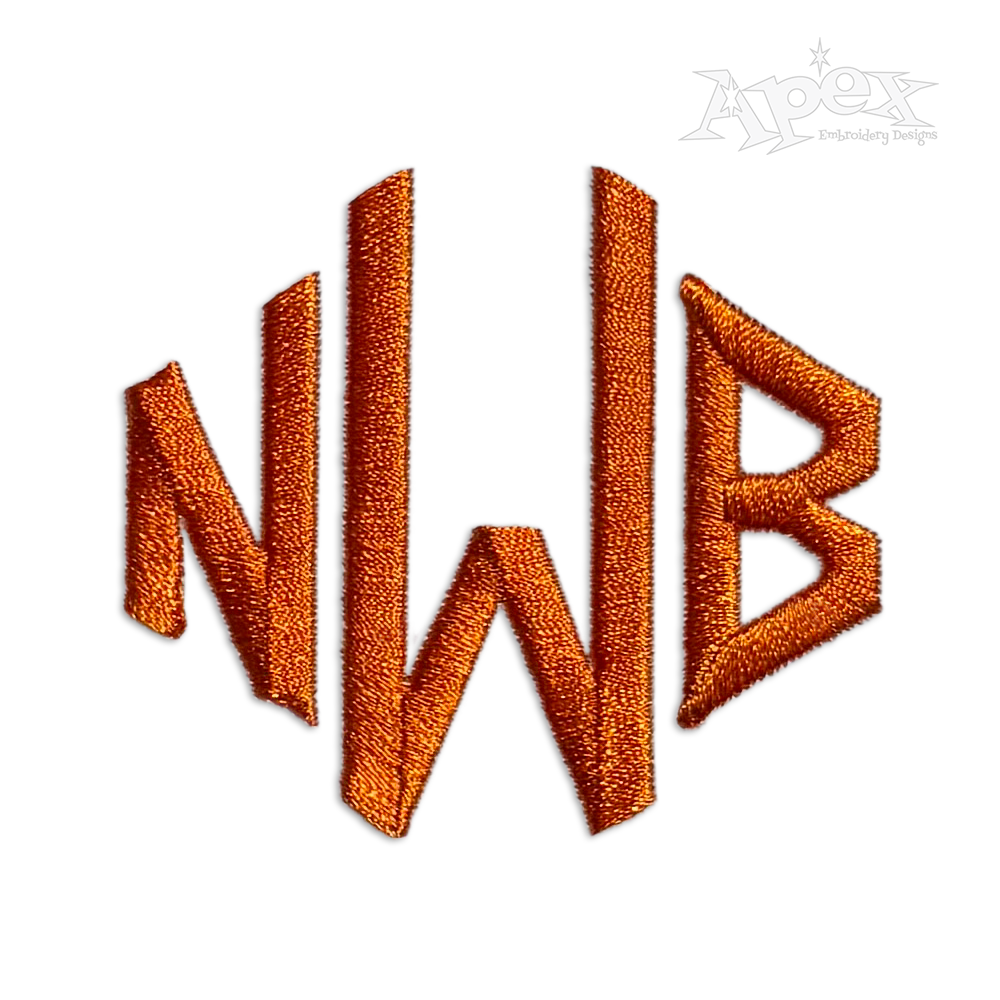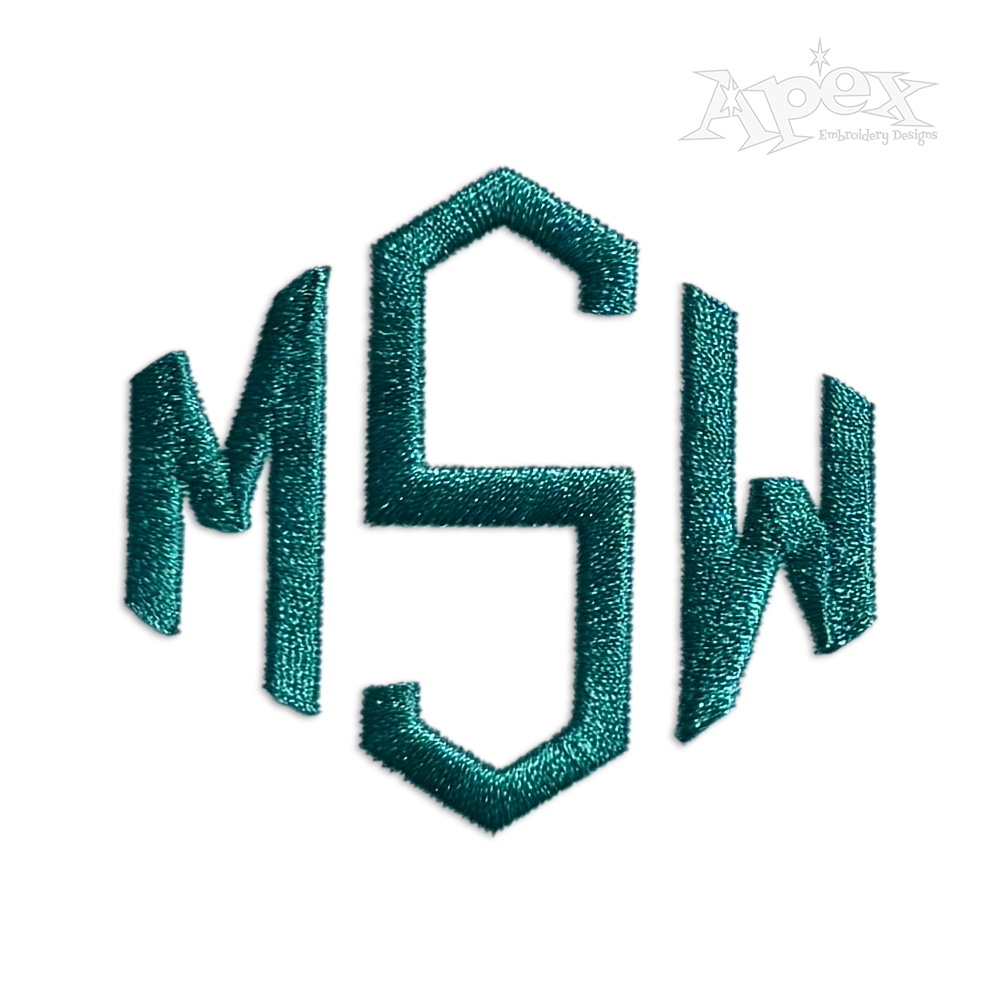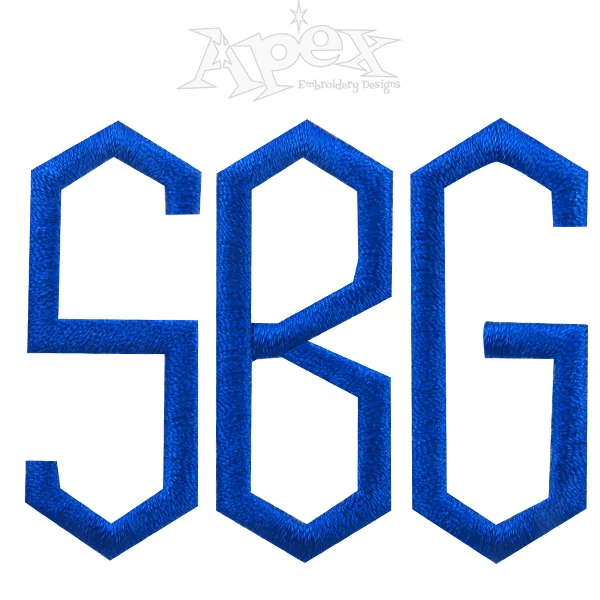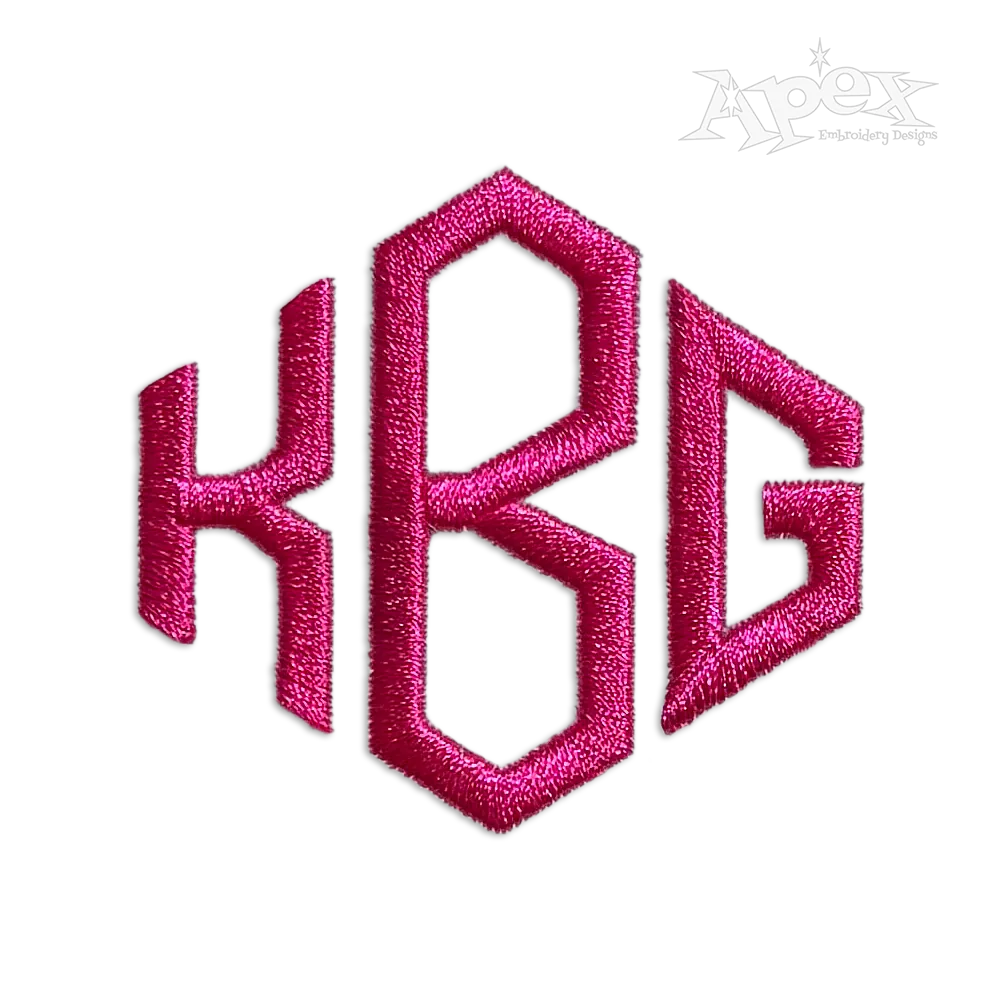
Diamond Three Embroidery Font
Drawing inspiration from the architectural symmetry of vintage estate monograms, the Diamond Three Embroidery Font transforms initials into a sculpted, faceted emblem. When mapping this classic trio-letter configuration, our artisan digitizers sought to capture the crisp geometry of Art Deco gemstone cuts. The sloped flanking letters frame a proud, statuesque center character, creating an iconic diamond silhouette that has defined bespoke elegance for generations. Every satin column is calculated to reflect light across thread lines with fluid brilliance, bringing a timeless, tailored distinction to both modern heirlooms and everyday luxury textiles.
The Diamond Three letter set is engineered for seamless visual balance, providing the essential components needed to assemble classic three-letter diamond compositions:
Project Ideas for Diamond Three Embroidery Font
The structured geometry of this satin stitch alphabet lends itself effortlessly to sophisticated personalization projects:
Achieving the perfect look depends on honoring the balance of the diamond silhouette. Consider these curated placements:
Diamond Three Craft & Letterform Details
A true three-letter diamond monogram requires masterful digitizing to ensure the outer sloped serifs harmonize with the dominant center character without distorting letterforms. Each stroke in this collection features intentional underlay scaffolding designed to anchor the fabric grain, preventing shifting and puckering on demanding weaves like linen and waffle pique.
The satin stitch columns feature carefully programmed stitch angles that follow the contour of each stroke, creating smooth, reflective sheens that catch the light at every angle. Rather than abrupt stops, the transitions at the diamond’s outer vertices are calculated with micro-density compensation to avoid thread buildup while maintaining razor-sharp exterior points. The result is an effortless, heirloom-grade stitchout that feels supple to the touch yet stands out with immaculate, sculptural definition.